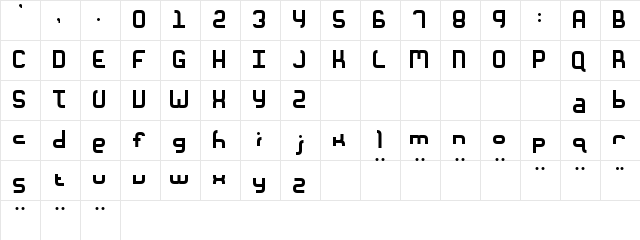
Unionform Regular Free Font
Unionform Regular
Design Context for Unionform
Unionform is a composed and adaptable typeface that performs quietly and consistently across a wide range of design contexts.